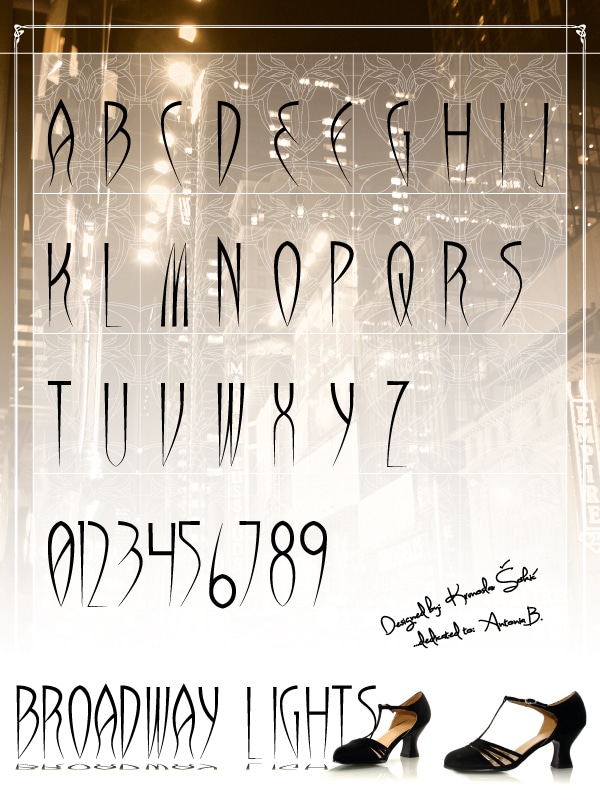
Broadway Lights Font is high quality Retro font, designed by Krunoslav Šokić. You can use this font for both personal & commercial.
…a bit retro…;P
UPDATE:
..tetters ” M ” and ” W ” are now more sharper and fit better…
EDIT:
…kerning was corrected and some compatibility issues were solved…